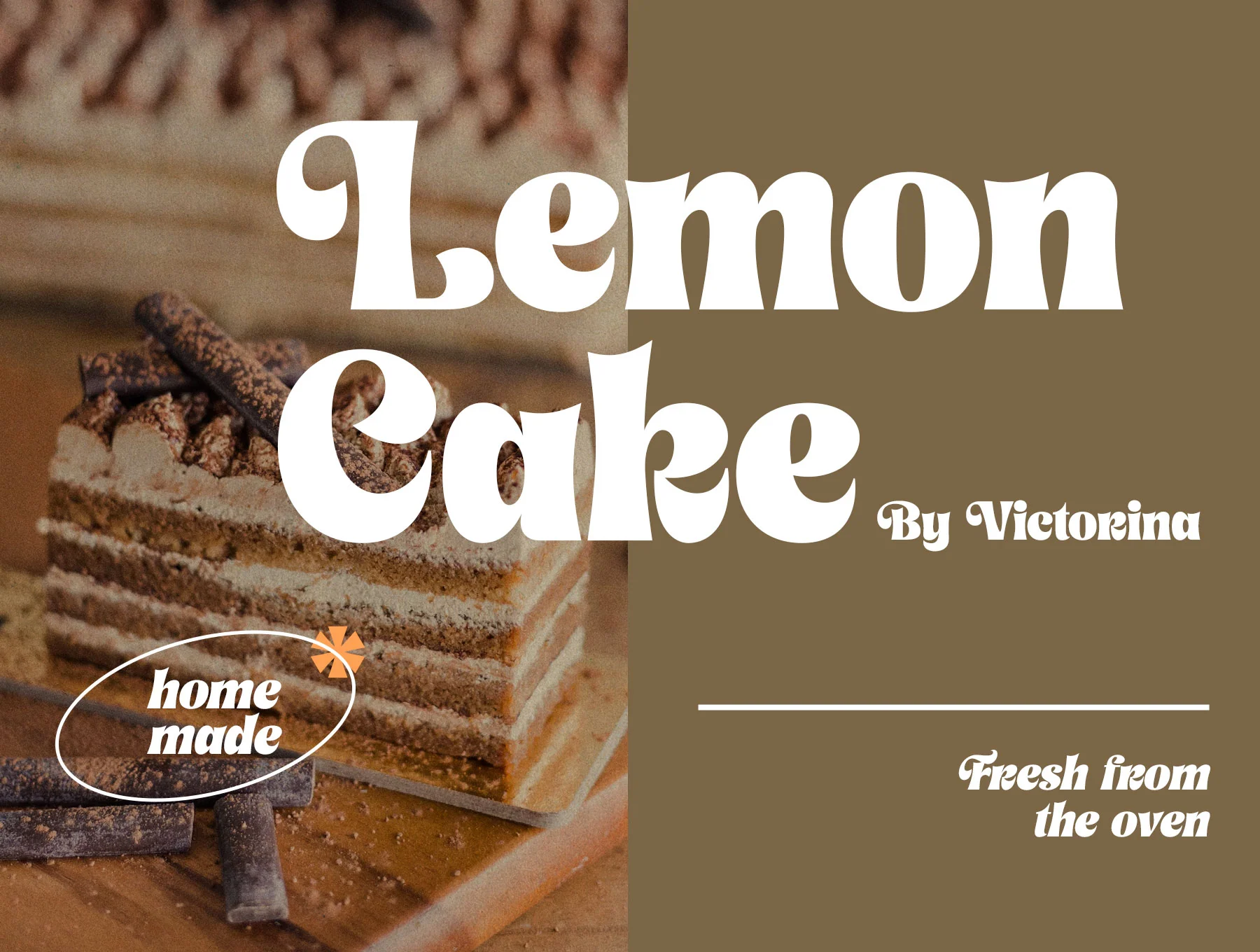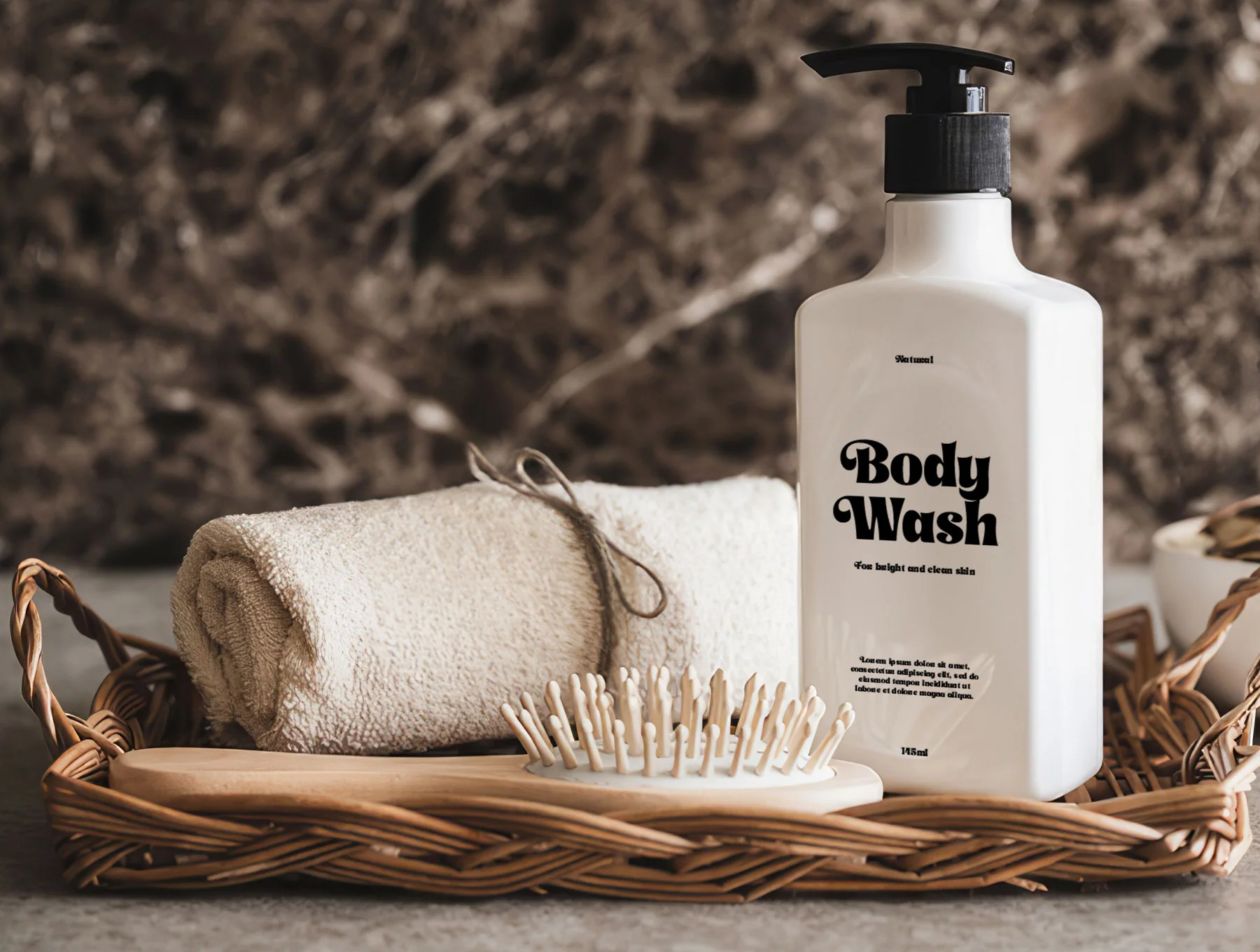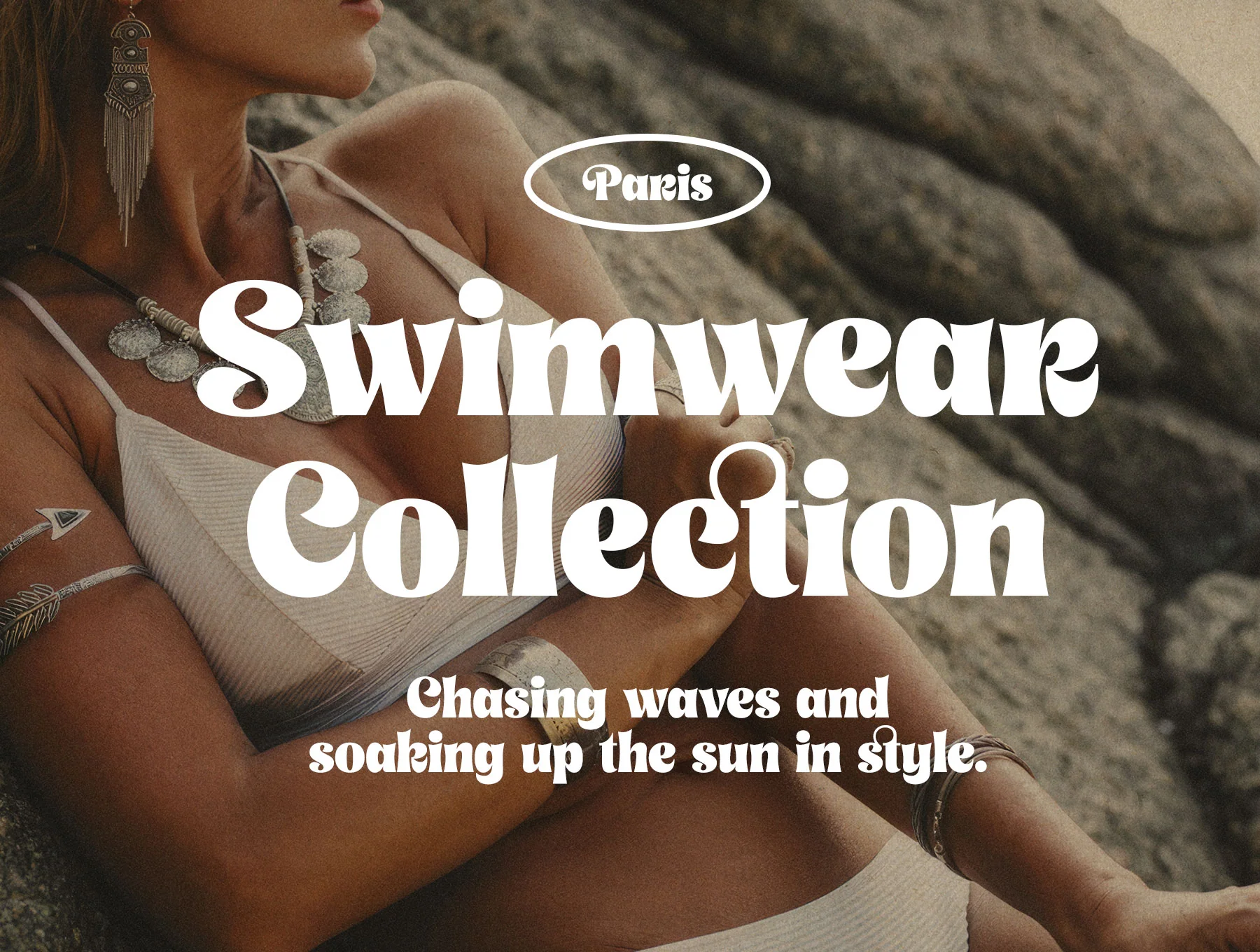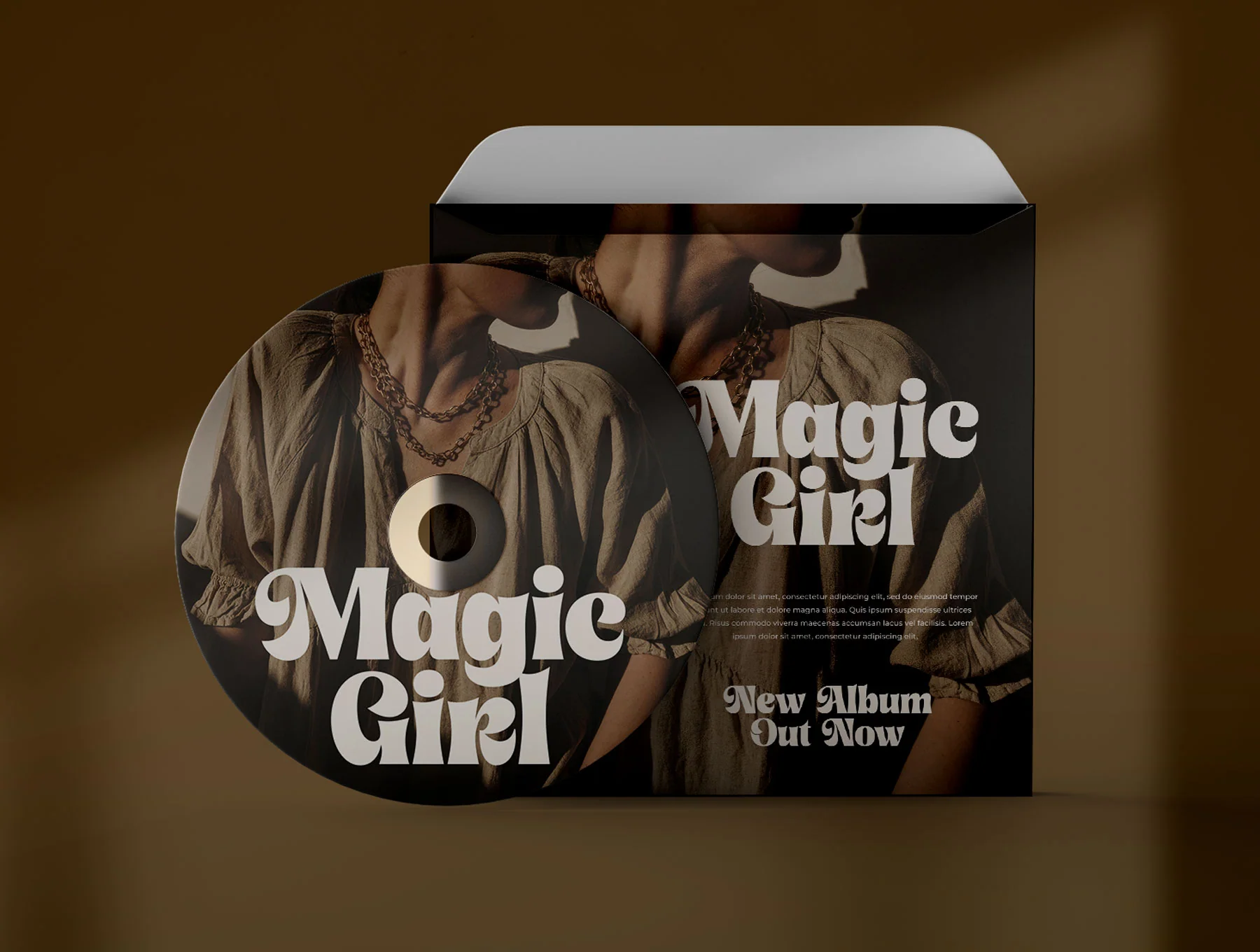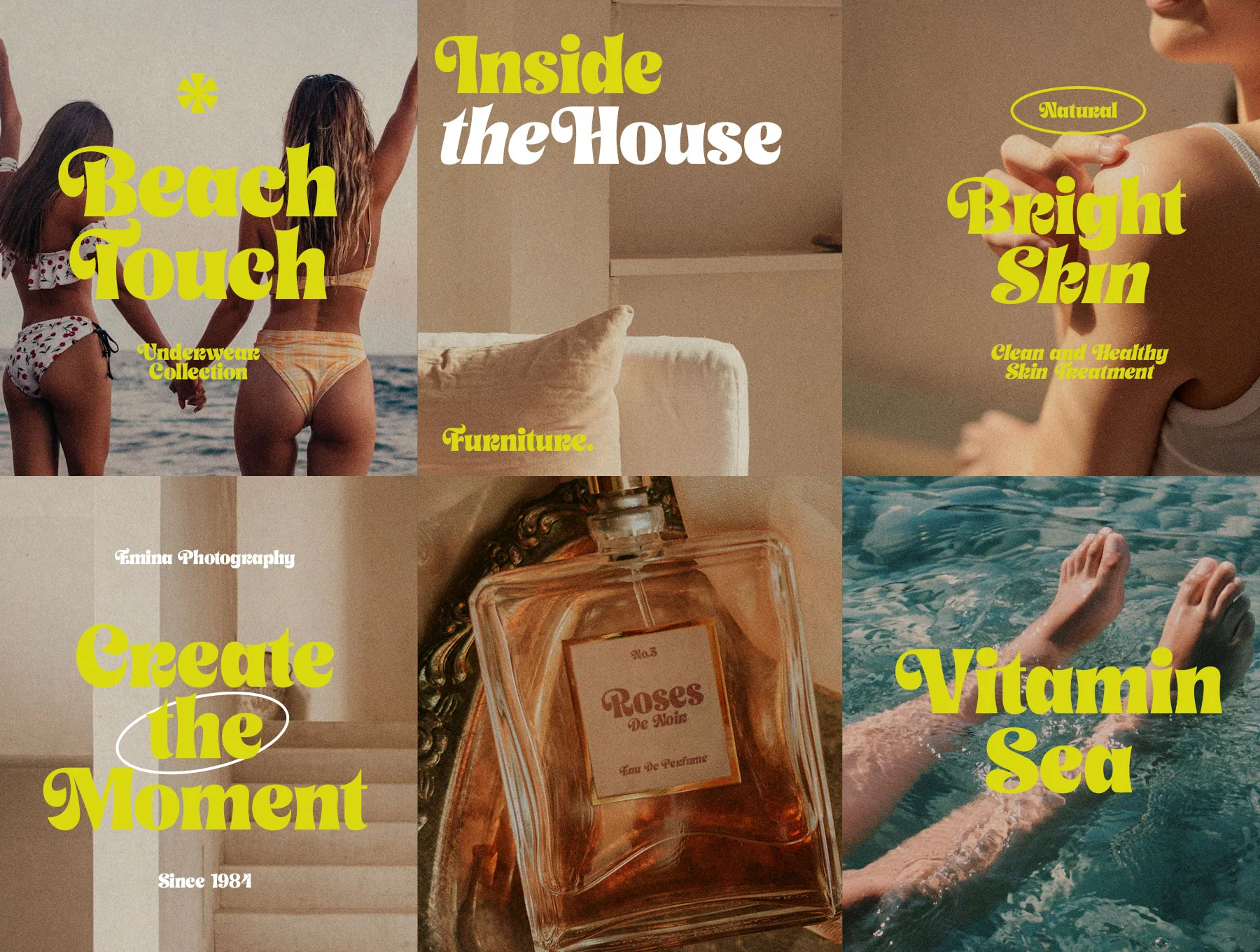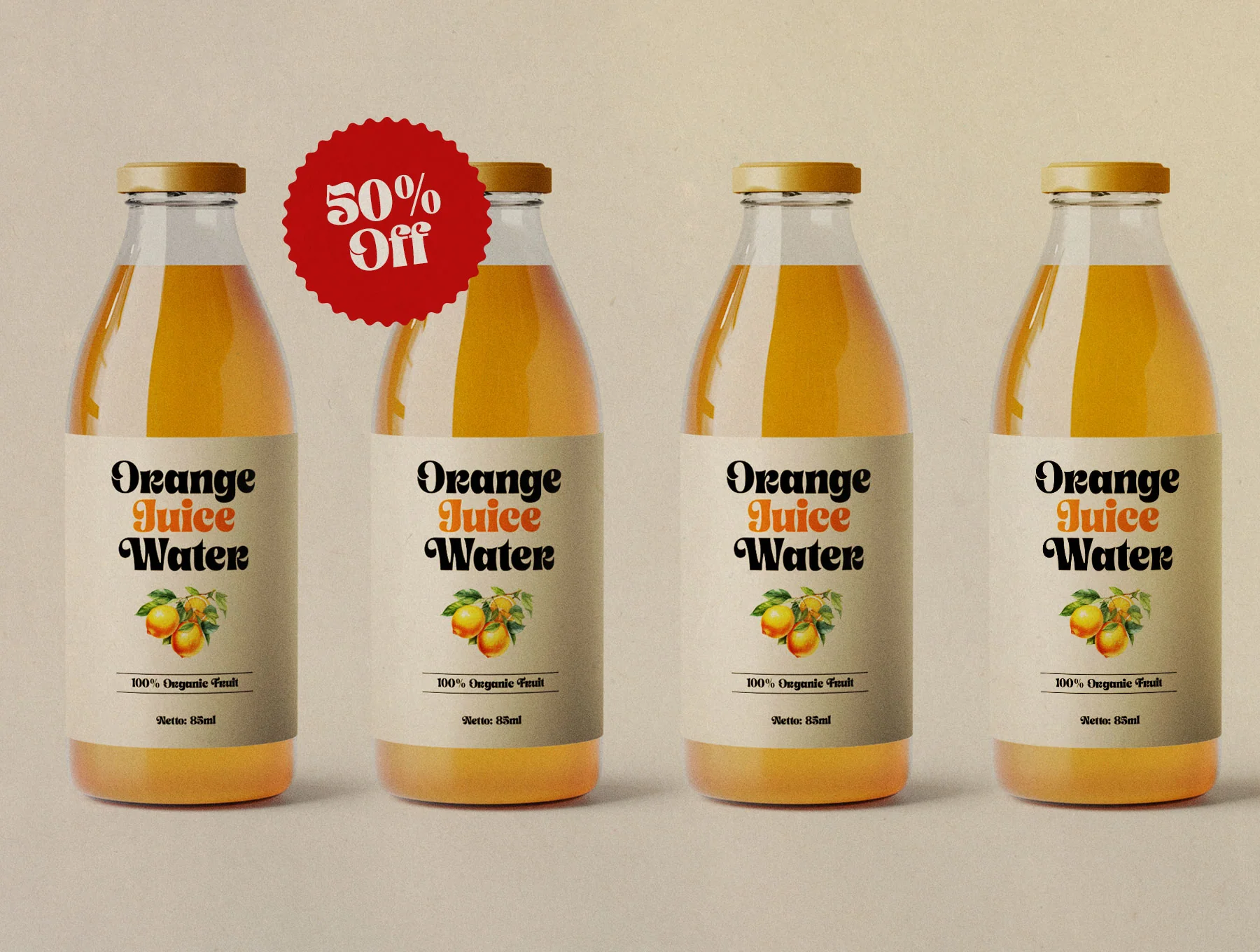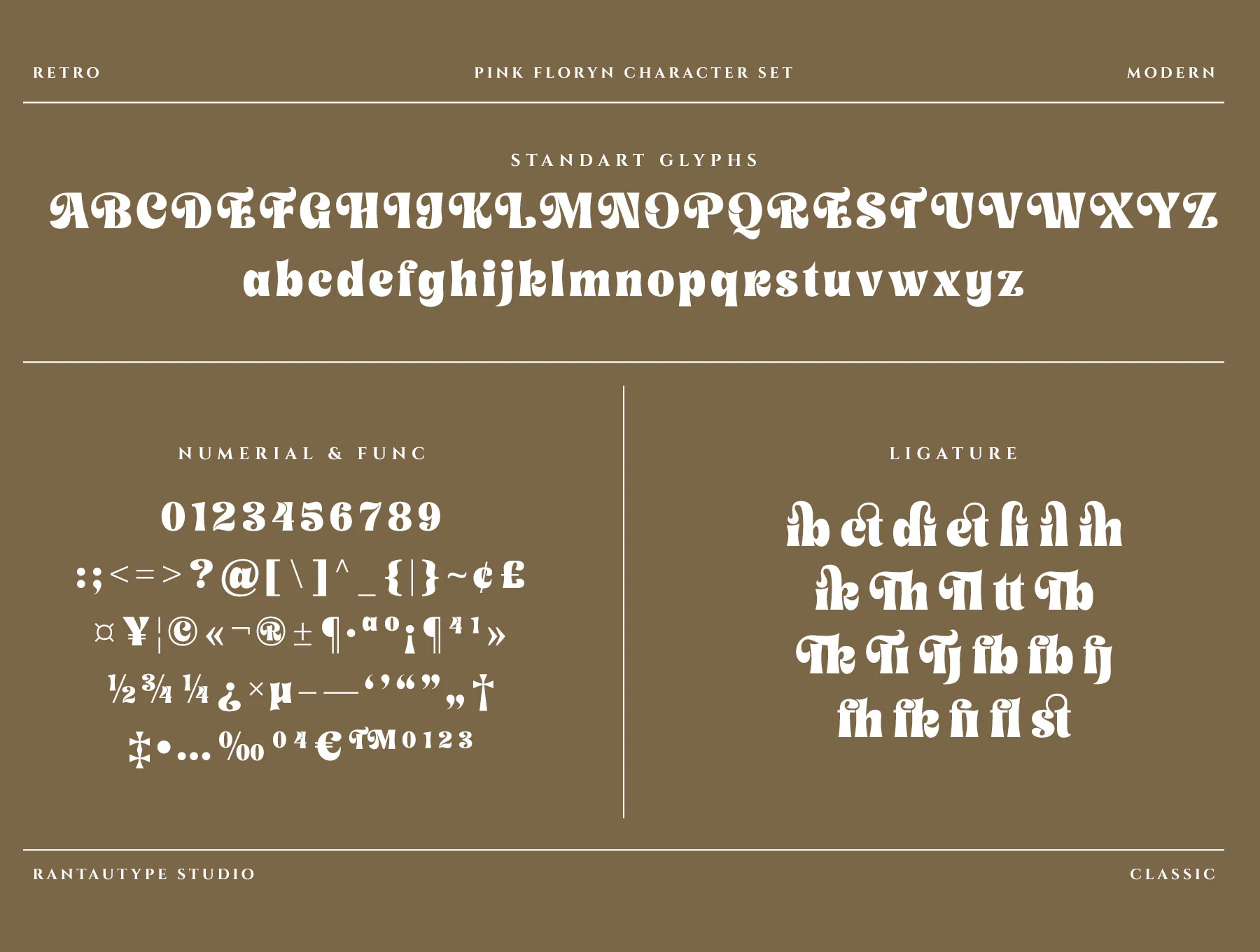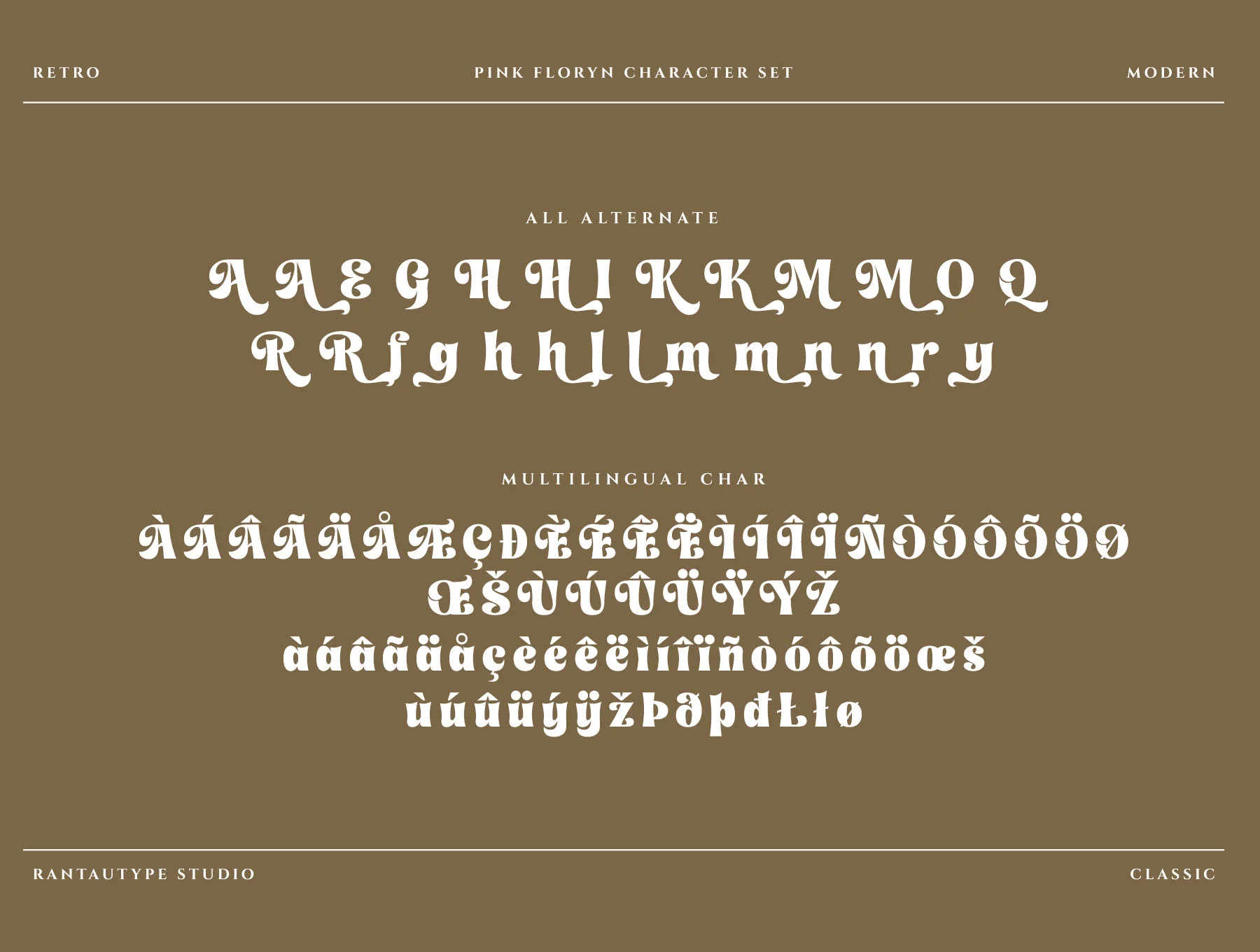
Pink Floryn Bold Retro Serif Font
Pink Floryn heavy vintage serif typeface
Standard character glyph set
Numerals and functional symbols
Ligatures with alternate characters
Pink Floryn is a vintage-inspired serif with bold, rounded curves, ideal for logos, titles, covers, branding, invitations, weddings, packaging, labels, ads, social posts, quotes, magazines, watermarks and events. Includes Regular and Italic in OTF, TTF and WOFF, standard glyphs, numbers, symbols, ligatures, alternates, multilingual support, and easy PC/Mac use in Adobe apps or Word.